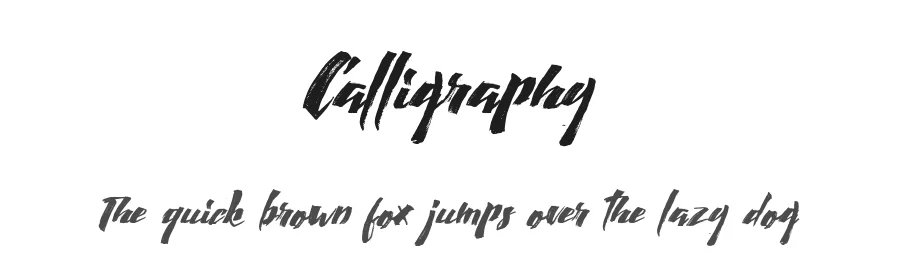
About Rocket Brush Font
Unleash a surge of creativity with Rocket Brush, a handcrafted brush font pulsing with raw, energetic style. Each letter is infused with dynamic strokes and bold character, making it the perfect choice for projects that demand attention and personality.
| Designer | Eep Apringga |
Rocket Brush Font is a script font that shines as a display or heading face. Pair it with a clean sans-serif or serif font for body text β the contrast creates a clear hierarchy while the two styles stay balanced and easy to read.